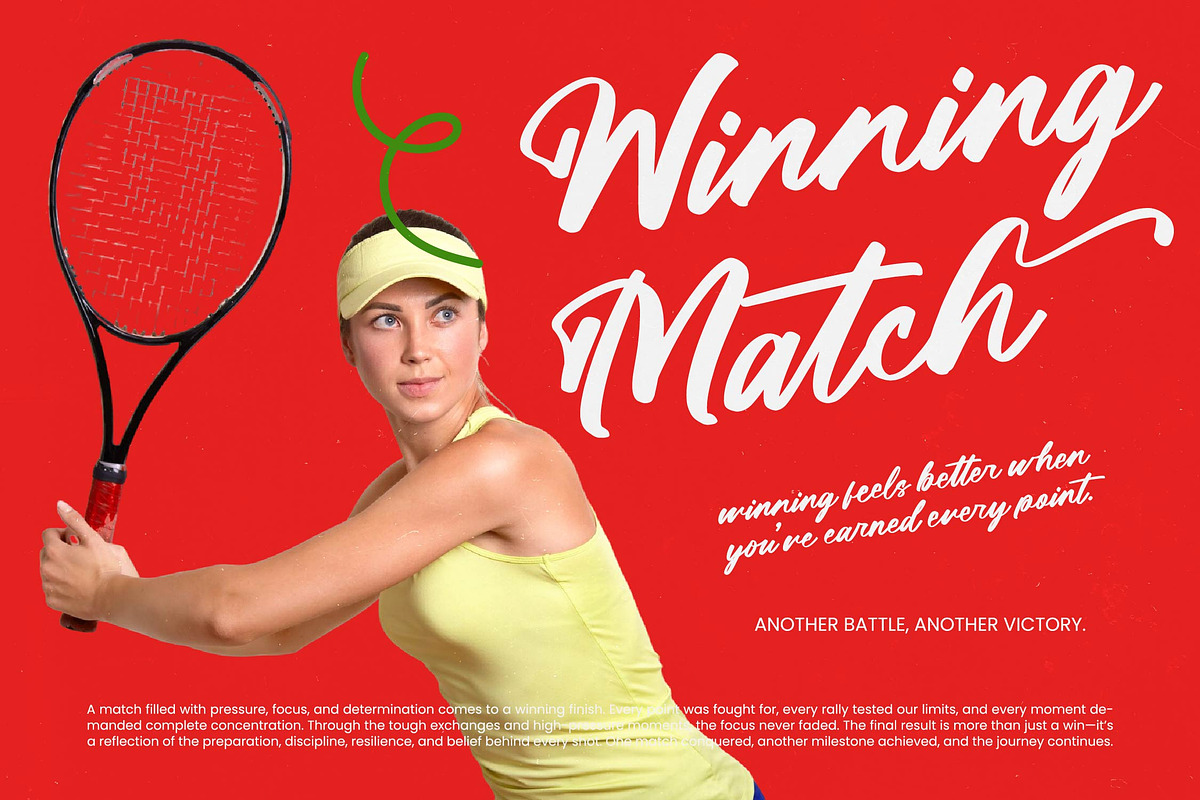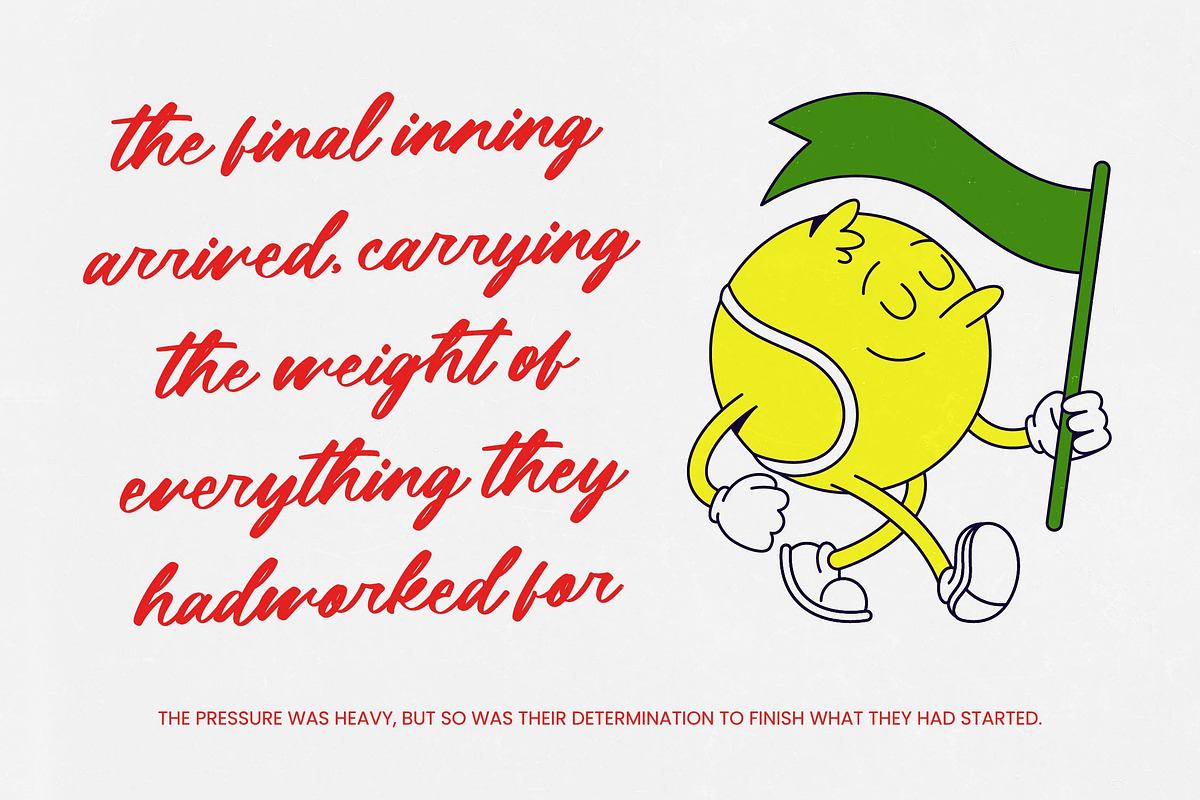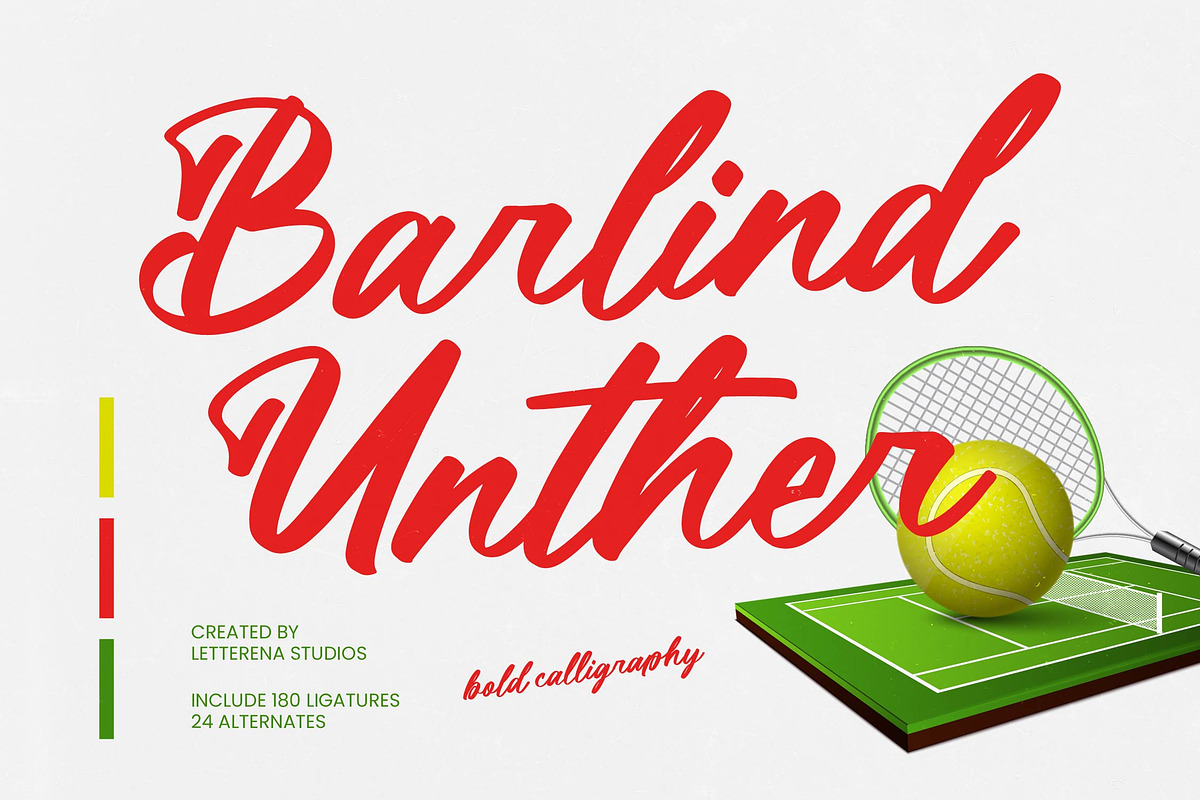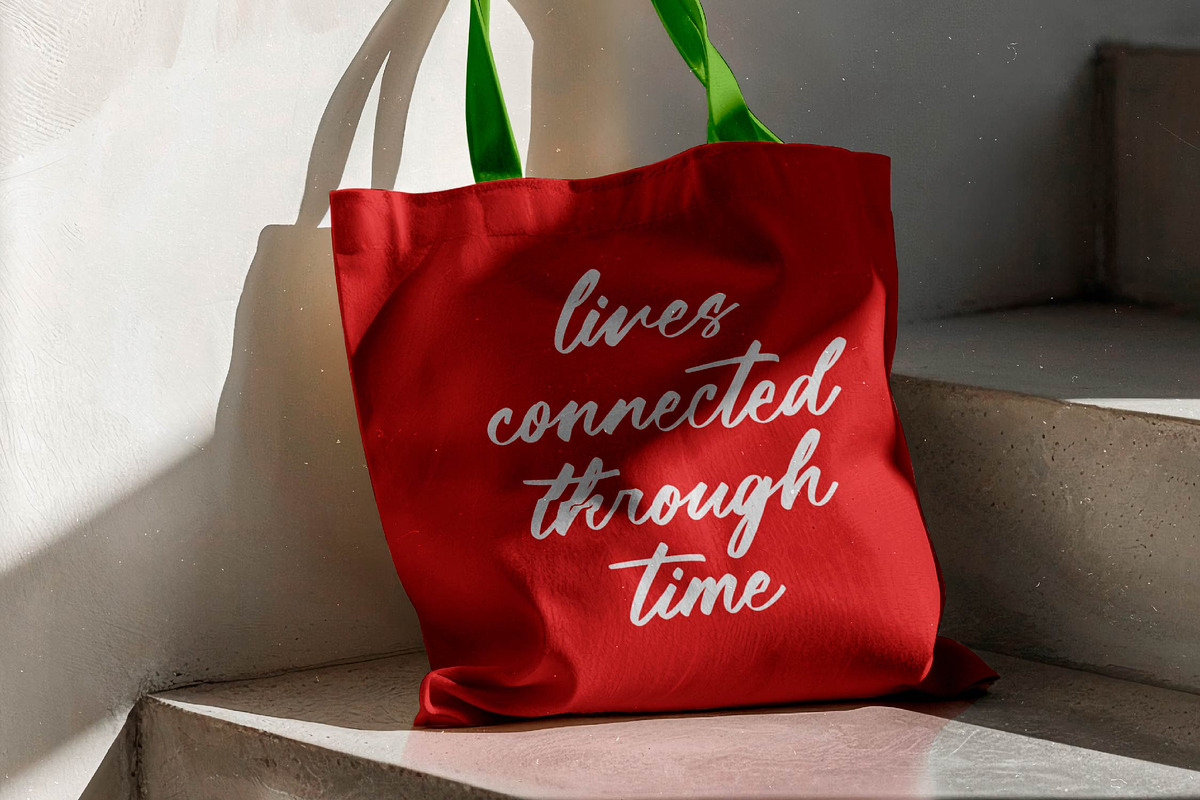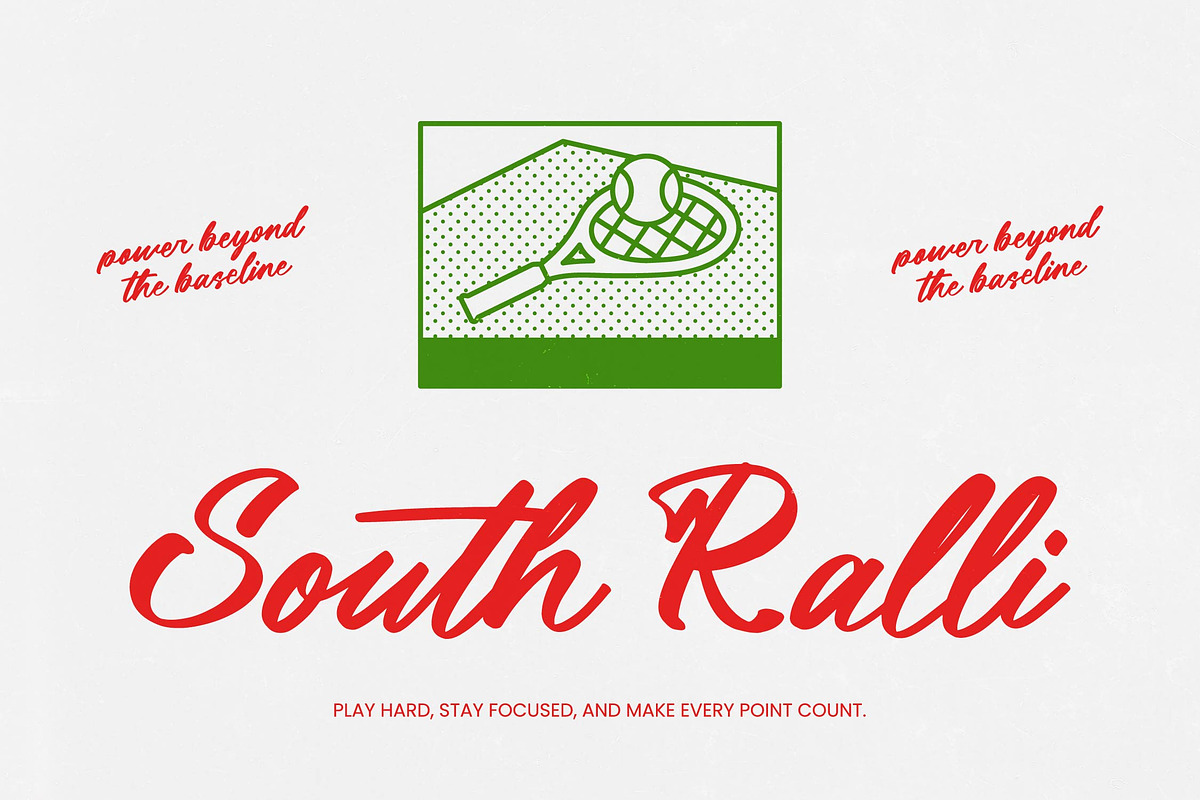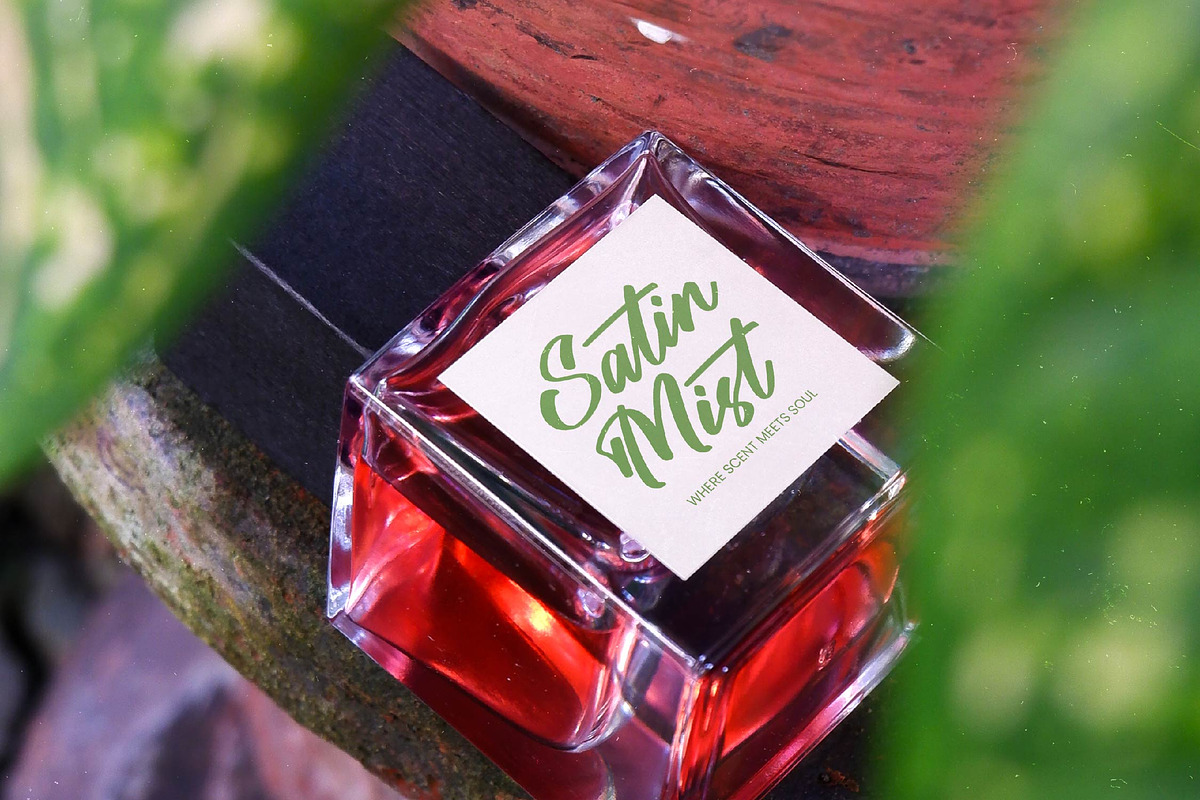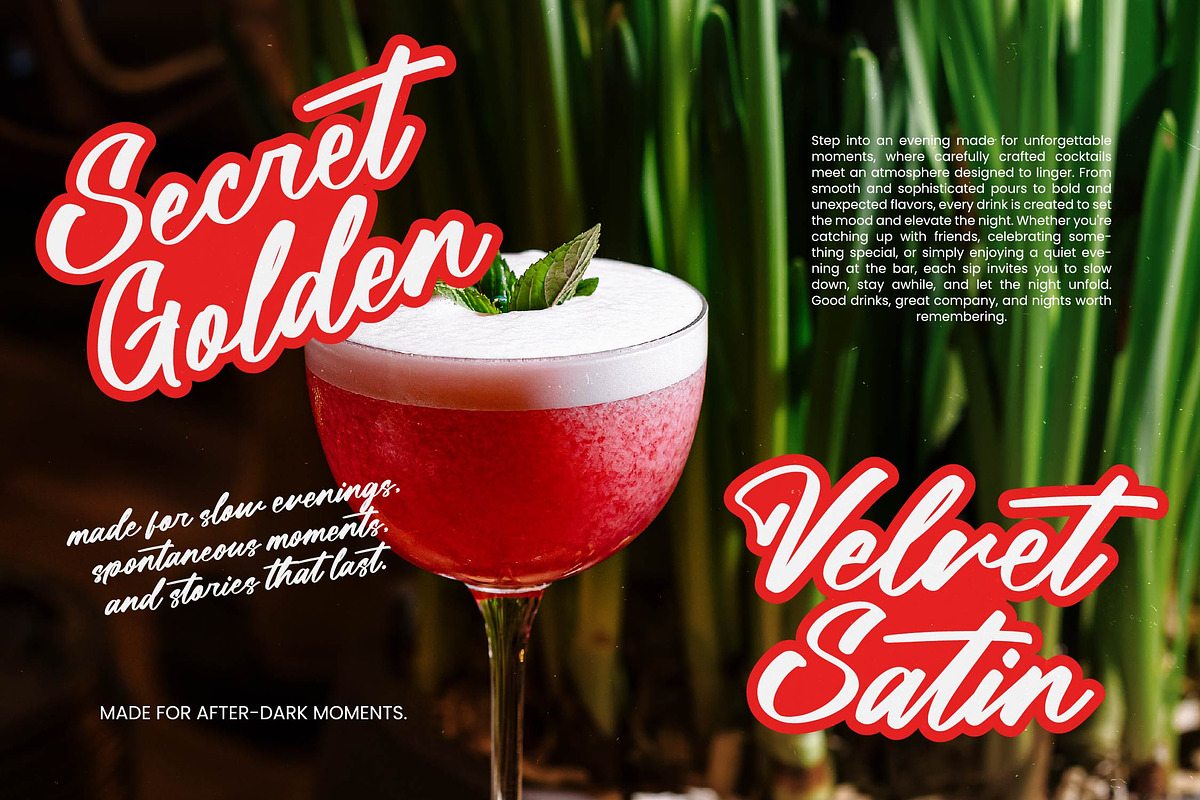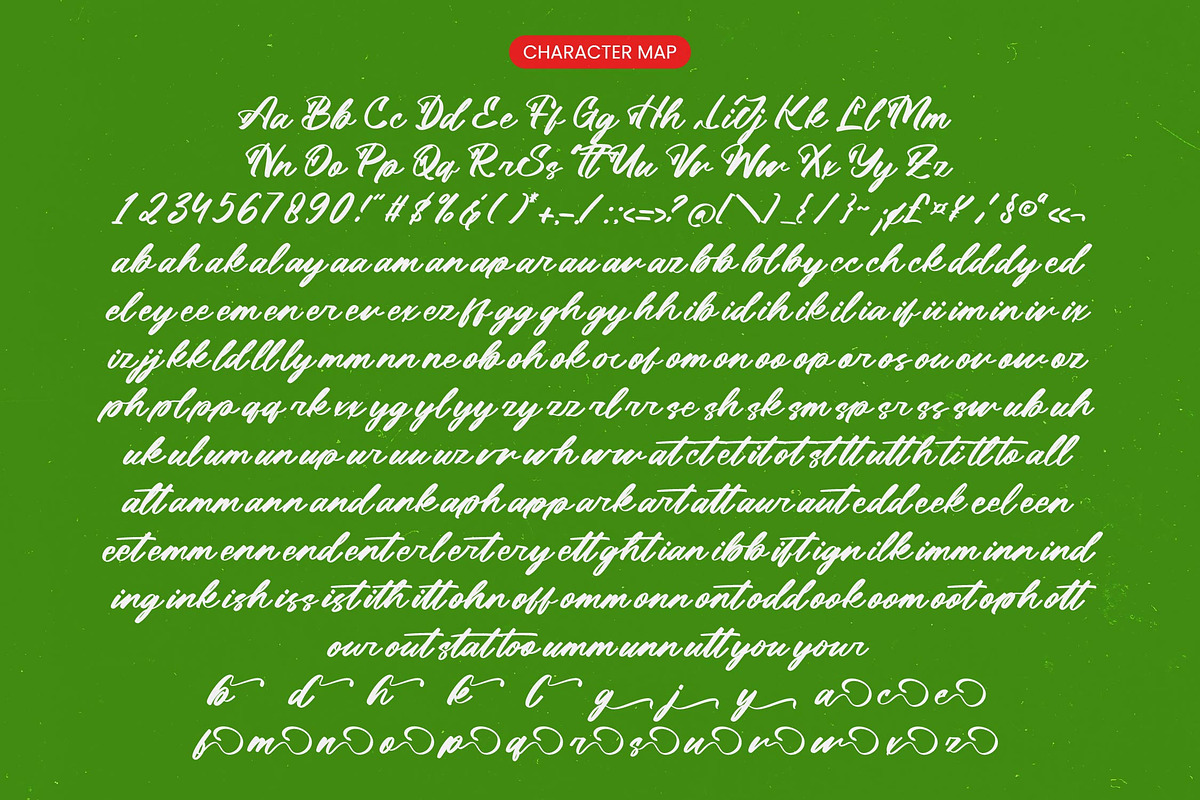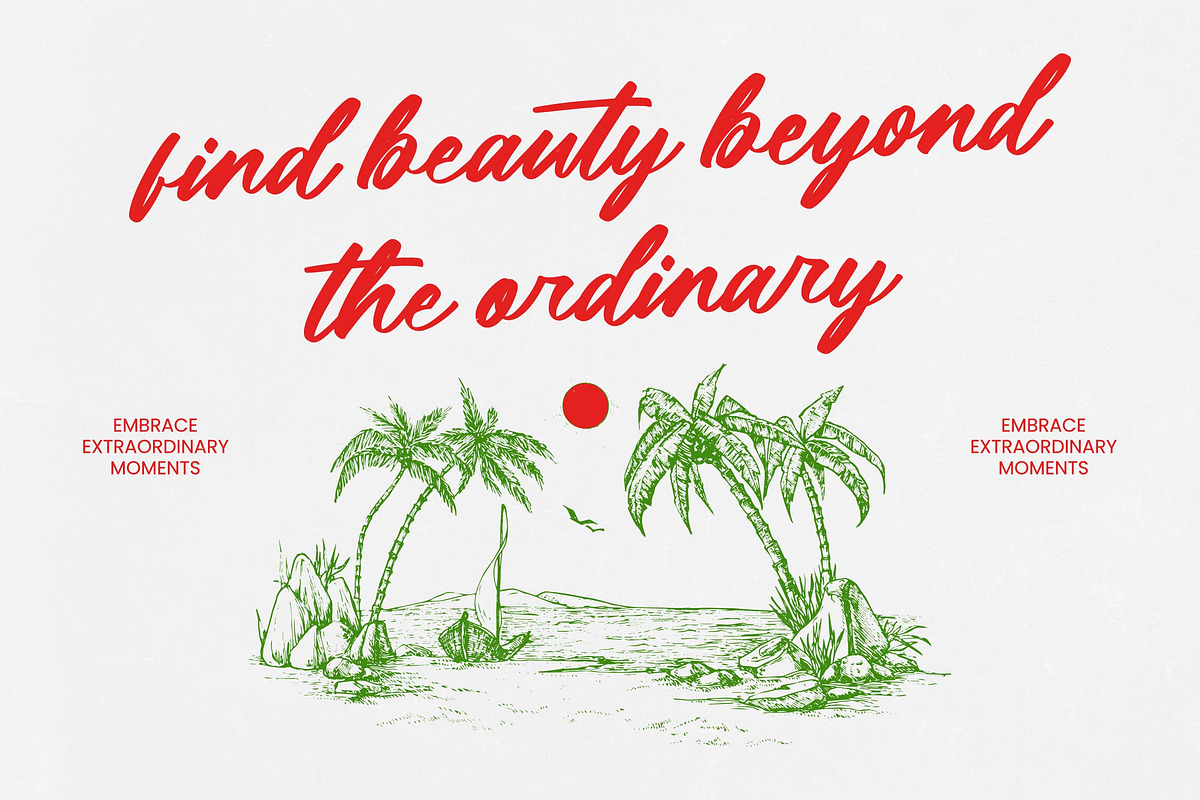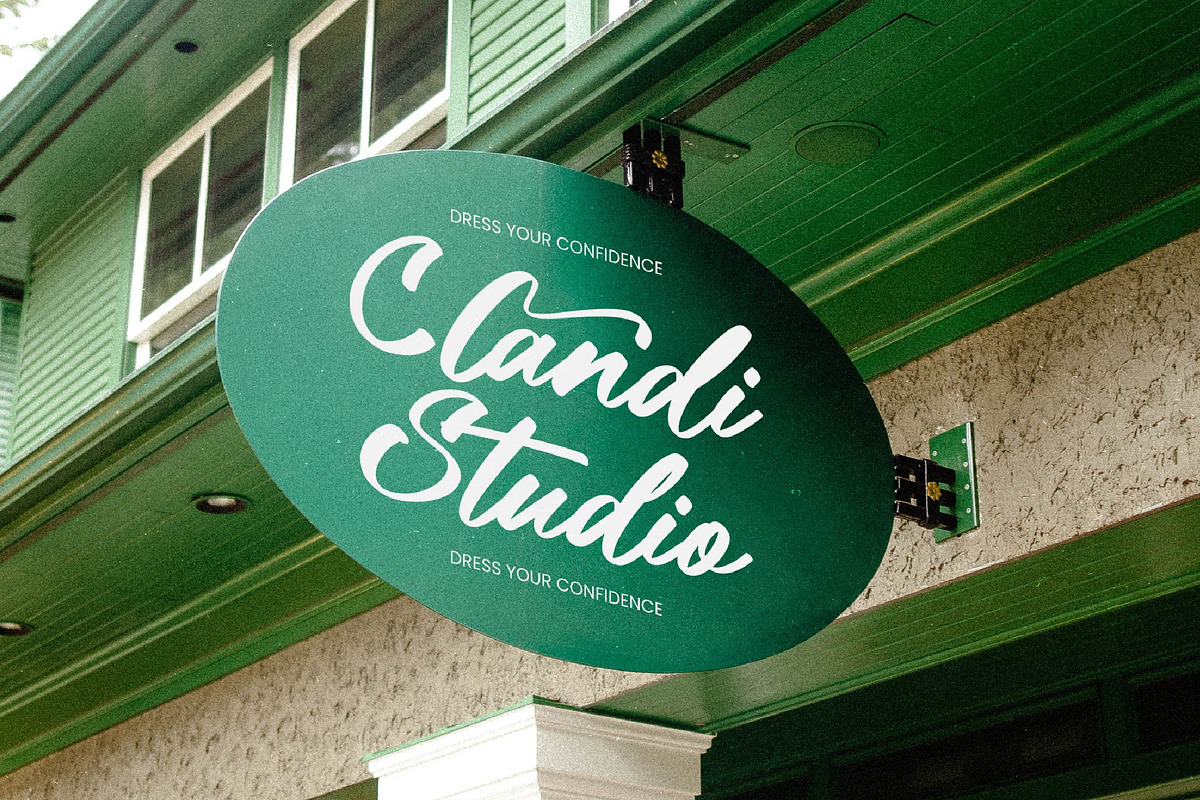
Barlind Unther Bold Calligraphy
Barlind Unther - Bold Calligraphy
Redefine visual impact with a typeface that embodies dynamic energy and artistic precision. Barlind Unther - Bold Calligraphy is a powerhouse of modern script design, offering a hand-drawn aesthetic that feels both organic and authoritative. Its high-contrast strokes and fluid transitions make it the ultimate choice for creators seeking to infuse their work with a sense of confident motion and unparalleled elegance.
Elevate your design projects through superior versatility and high-end appeal in every application. This typeface is perfect for luxury branding, premium packaging, and dynamic sports apparel where a strong visual identity is paramount. Beyond these, Barlind Unther - Bold Calligraphy excels in editorial design and social media marketing, providing the visual weight necessary to stop the scroll and leave a lasting impression on your target audience.
Expand your creative horizons with a font designed for seamless adaptability and global reach. With its extensive multilingual support, Barlind Unther - Bold Calligraphy adapts seamlessly across global markets, making it incredibly versatile for international projects. Featuring over 180 ligatures and 24 alternates, this font provides the customization options needed to ensure every layout feels bespoke and professional.
Secure a competitive edge by integrating a typeface that commands immediate attention and enhances brand recognition. Barlind Unther - Bold Calligraphy successfully combines the sophistication of traditional calligraphy with the boldness of modern typography. It is an essential asset for professional designers who demand creative flexibility and commercial success in an increasingly crowded visual landscape.